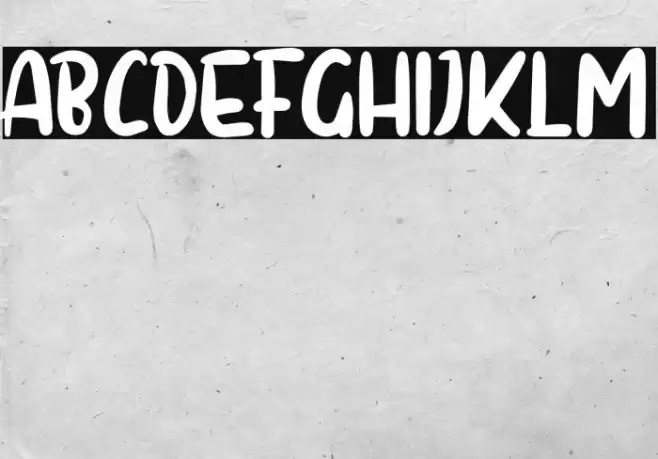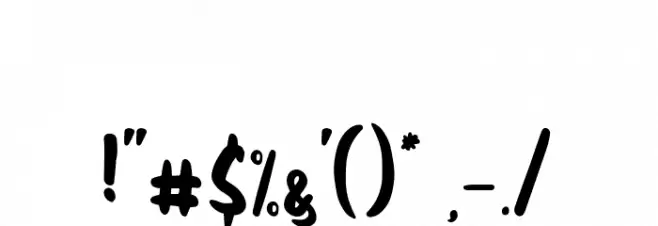
MaqueenSans Font
MaqueenSans Description
This font features a playful and bold design with rounded edges, giving it a friendly and approachable appearance. The letters are slightly condensed, with a consistent stroke width that maintains readability while adding a touch of whimsy. The uppercase and lowercase characters are well-balanced, and the numerals are clear and distinct. Special characters are designed to match the overall style, making this font versatile for various applications. Its boldness ensures it stands out, making it suitable for attention-grabbing headlines or creative projects.
A playful, bold font with rounded edges and consistent stroke width from Comic fonts.
- Proposed Projects: Ideal for children's books, playful branding, posters, and social media graphics.
- Overall Style: Playful